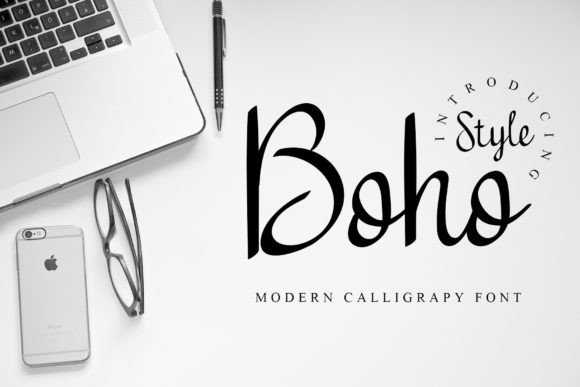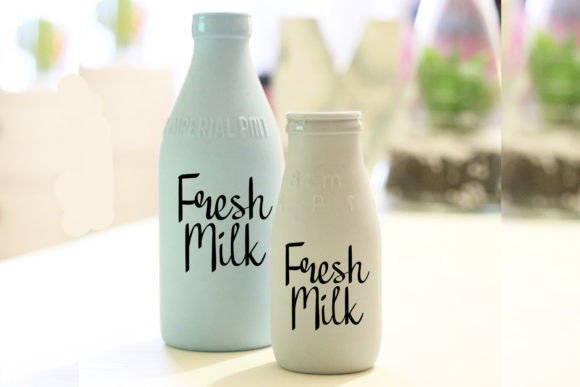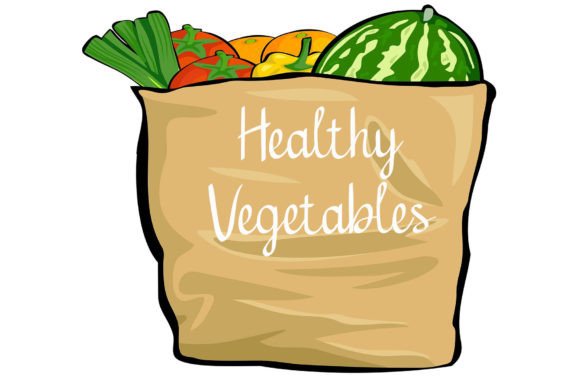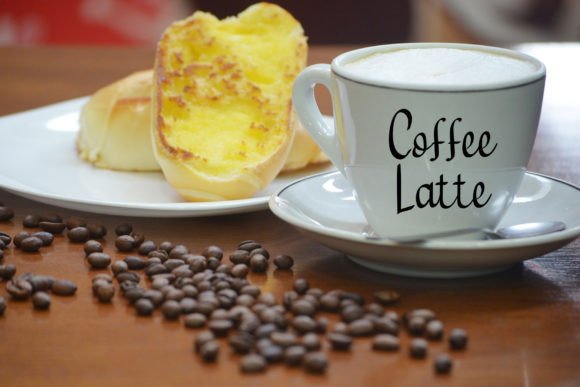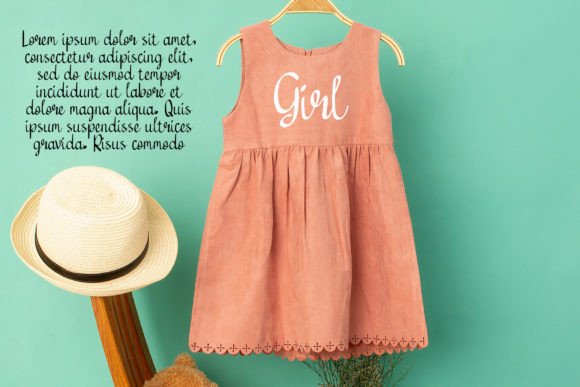
Boho Font
What Is Boho Font?
Boho is a unique and elegant handwritten font crafted to bring a refined, artistic touch to any project. With its varied baselines, delicate strokes, and graceful glyphs, Boho creates an exquisite look that feels both modern and timeless.
From the first glance, this font exudes sophistication and creativity, making your text stand out beautifully.
Boho is a versatile font that fits seamlessly into a wide range of designs. For wedding invitations and greeting cards, it creates a romantic, personal feel that guests will remember. Whether your event is classic, rustic, or bohemian, Boho pairs perfectly with any style.
This font is also ideal for logos and branding materials. It adds a handcrafted elegance that helps your business look polished and authentic. Use it on business cards, product packaging, or signage to create a cohesive and upscale brand identity.
Boho shines on large-scale designs like billboards, banners, and posters. Its fine lines and unique character forms catch attention while remaining clear and easy to read.
If you design social media graphics or blog headers, Boho’s elegant flow brings a stylish and artistic vibe that elevates your content effortlessly.
Why Choose Boho Font?
Boho’s beauty lies in its combination of elegance and versatility. The varied baselines create movement and a natural handwritten feel, while the smooth lines maintain a professional, clean look.
Boho instantly elevates your work with its refined aesthetic. Even the simplest layouts look sophisticated when paired with this font. Whether you’re creating wedding stationery, premium branding, or thoughtful cards, Boho’s graceful style brings a touch of luxury and warmth.
Using a font this polished signals that you value detail and quality, helping you connect with your audience on a deeper level.
Boho is more than a handwritten font—it’s a way to infuse your projects with elegance, creativity, and a personal feel. From invitations and logos to social media posts and packaging, Boho helps your designs shine with sophistication.